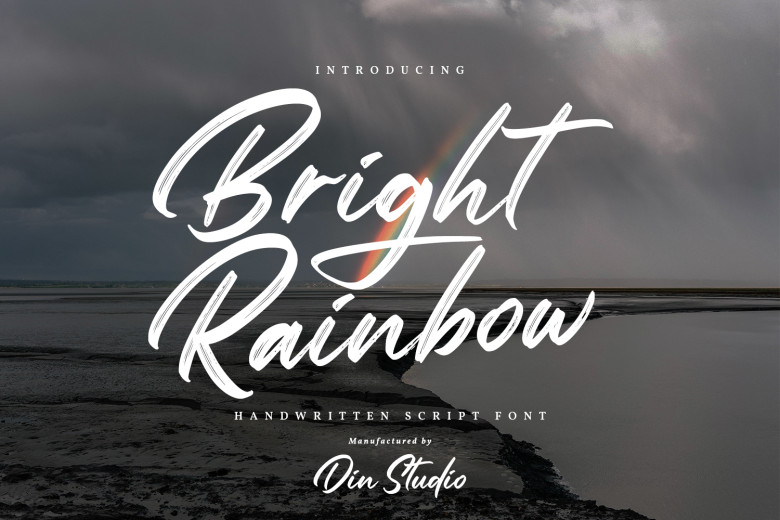
Bright Rainbow Font
Bright Rainbow will look gorgeous on wedding invitations, thank you cards, quotes, greeting cards, logos, business cards, and every other design that needs a handwritten touch.
Bright Rainbow Handwritten Font